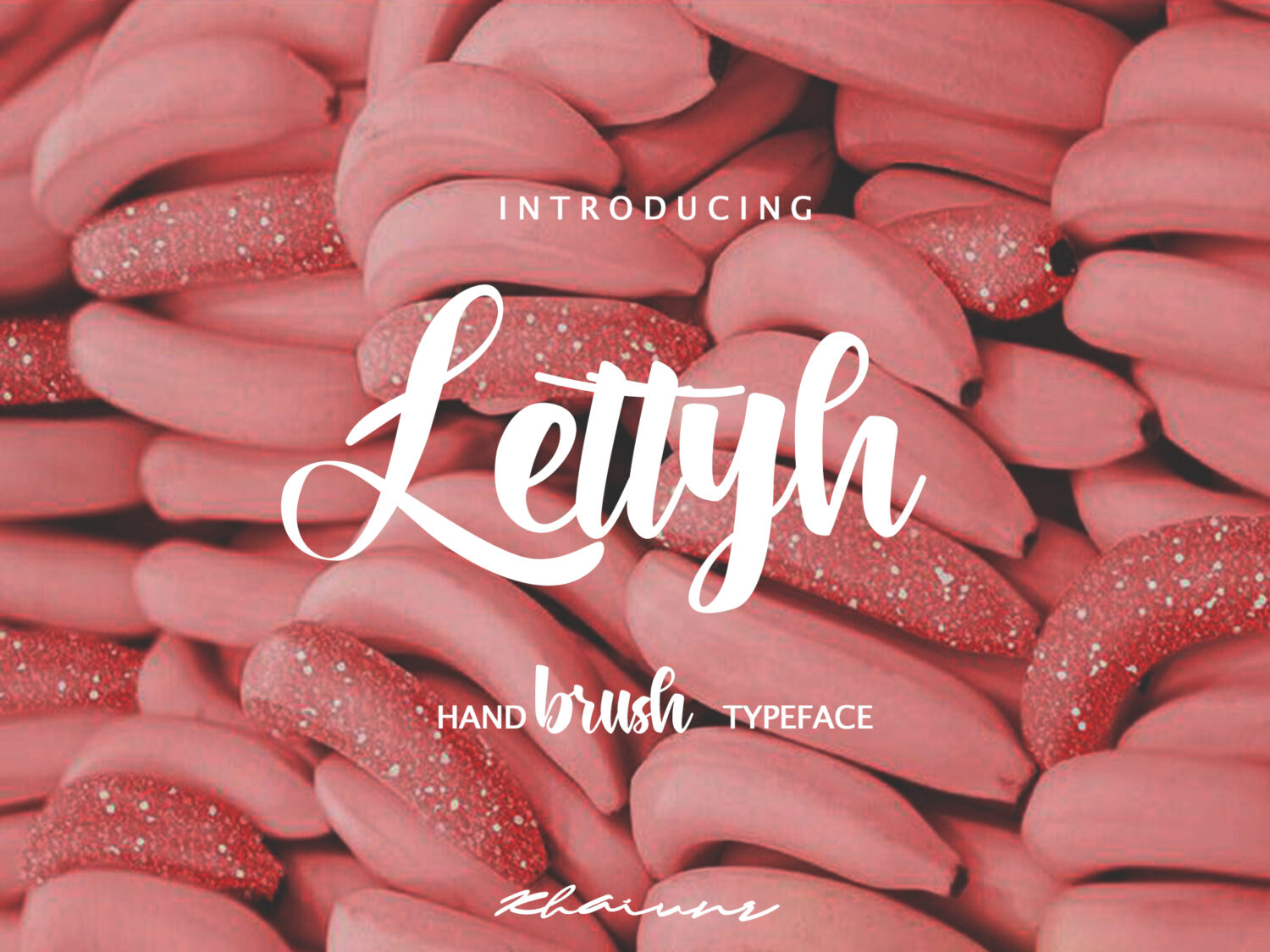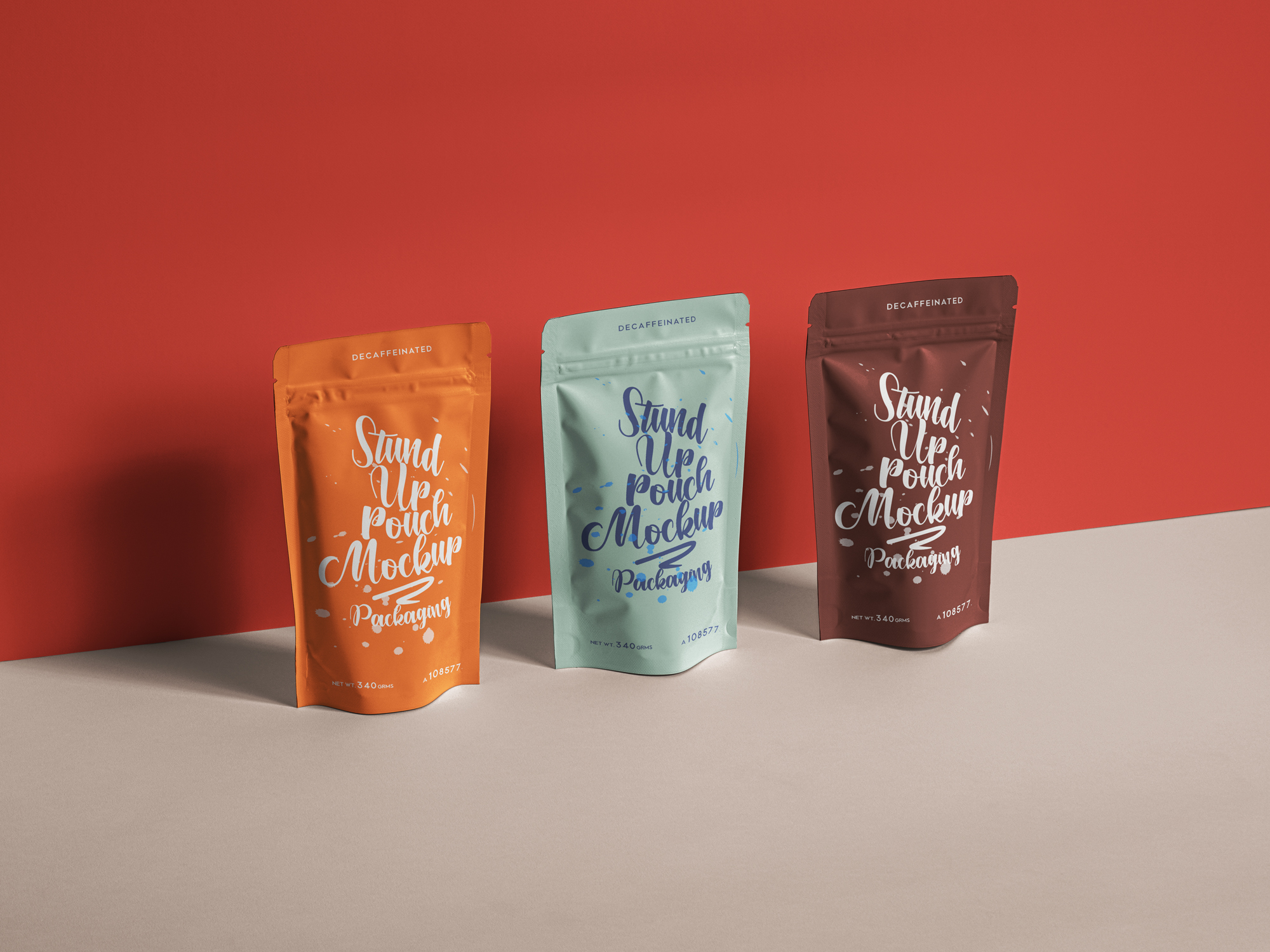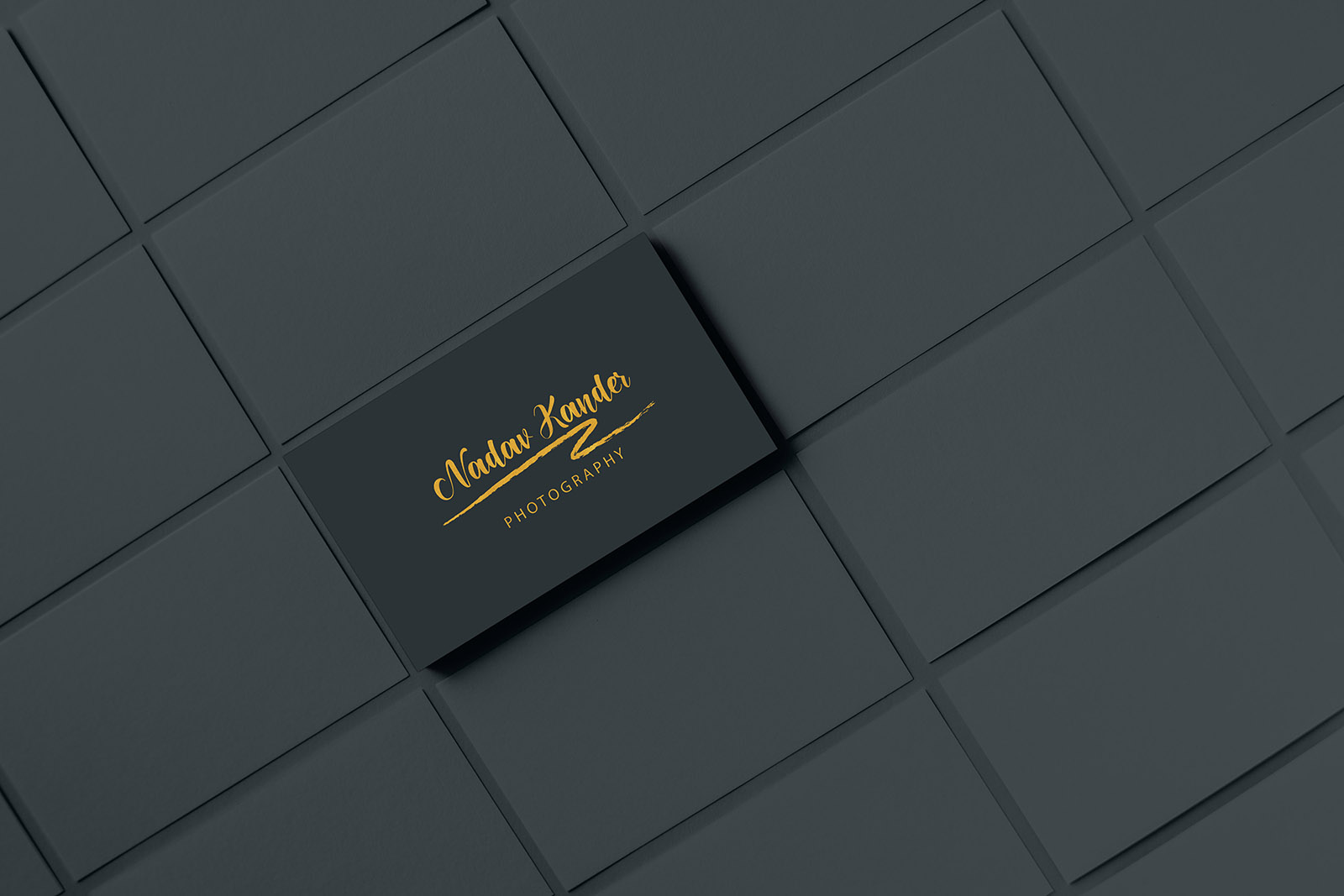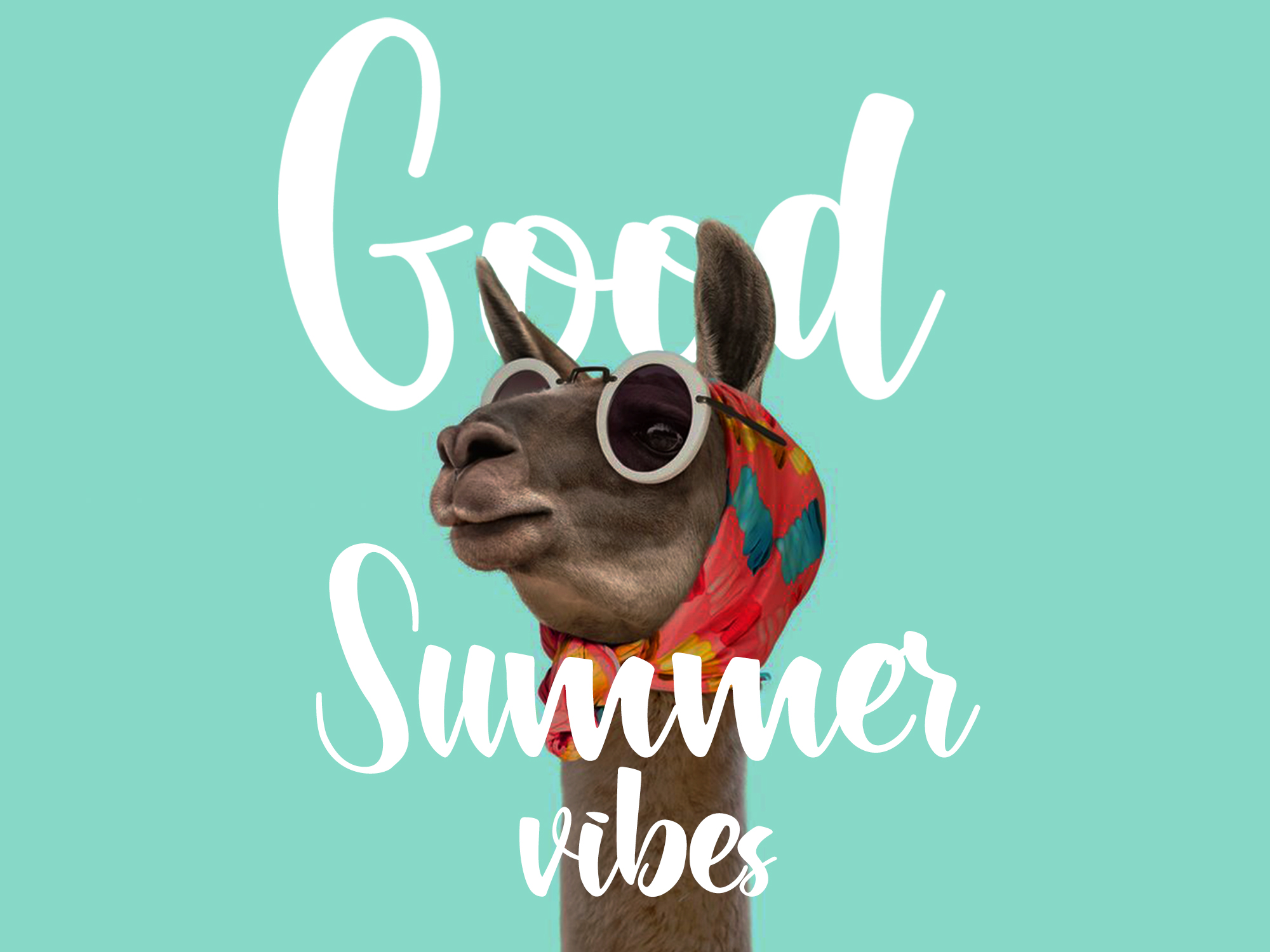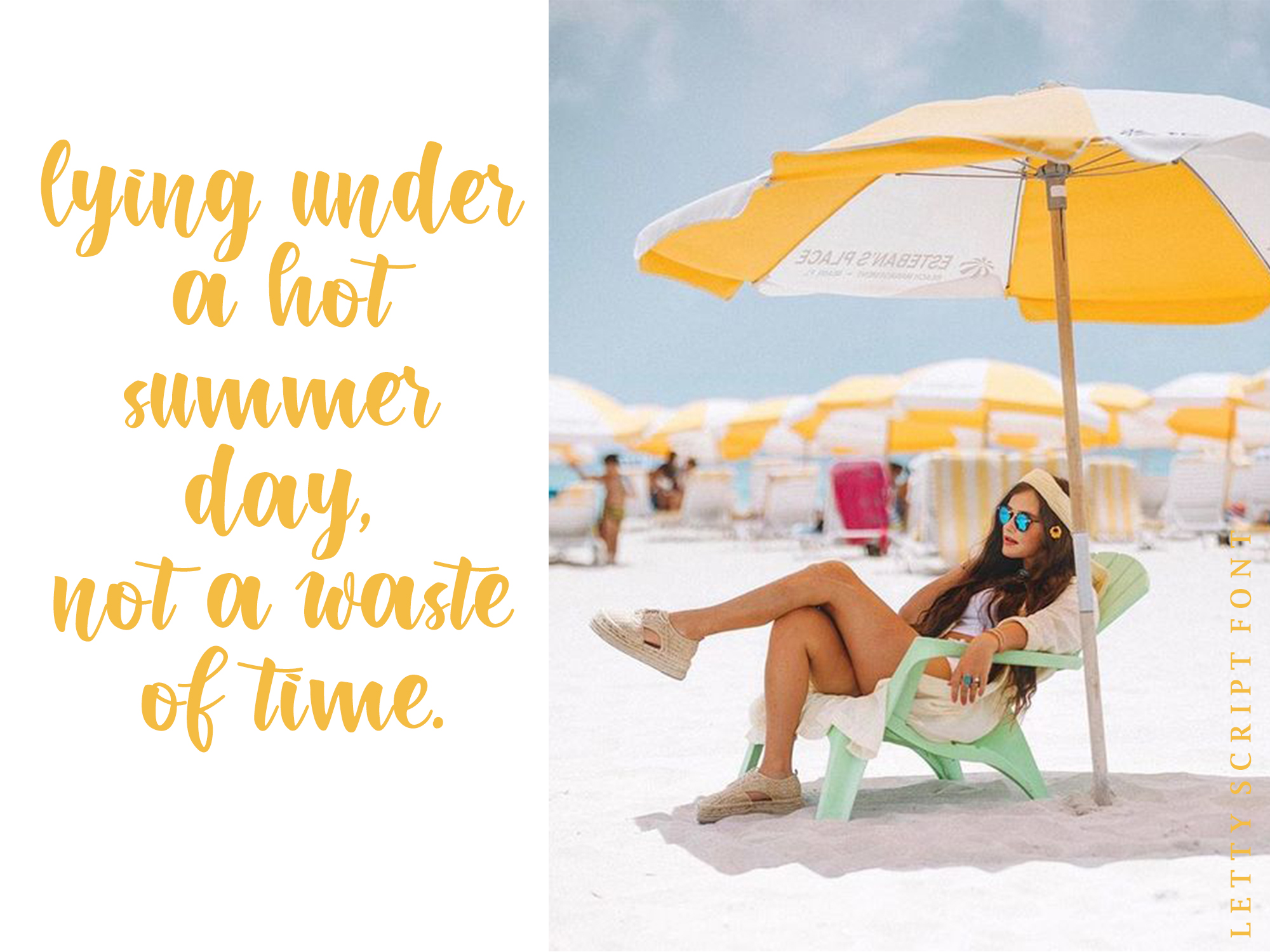
Lettyh Free Font
Lettyh Free Font is perfect for branding projects, logo, wedding designs, social media posts, advertisements, product packaging, product designs, label, photography, watermark, invitation, stationery, and any projects that need handwriting taste. This free typeface was designed by a talented Khaiuns. If you like it don’t forget to check out the full version.